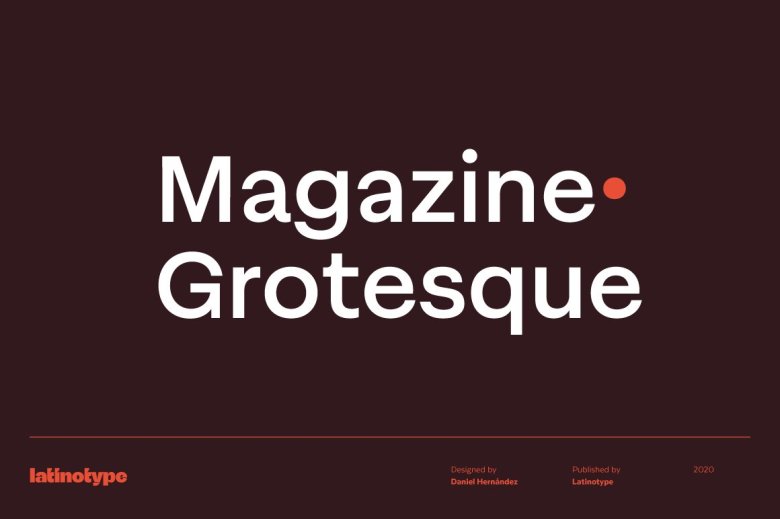
Magazine Grotesque Font
Magazine Grotesque is an eye-catching sans-serif font designed specifically for titles and headlines, making it stand out from traditional Grotesk fonts with its distinct characteristics – including outstrokes that extend beyond the body of “a” letters or closed apertures in “c”. Its unusual rhythm comes from these distinctive features which set Magazine Grotesque apart.
The Magazine Grotesque font is ideal for logos, titles and headlines; short blocks of text may also benefit from using this face as it supports over 200 Latin-based languages through 487 characters from its Latinotype standard library.